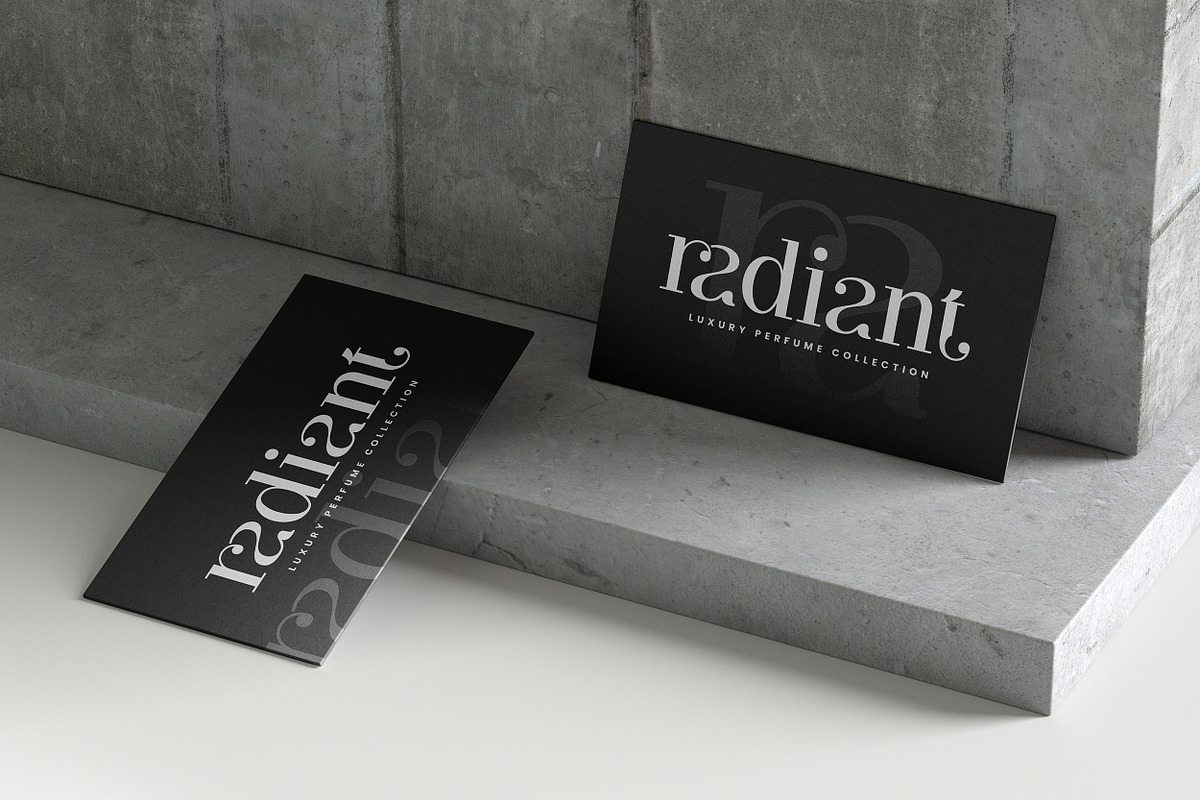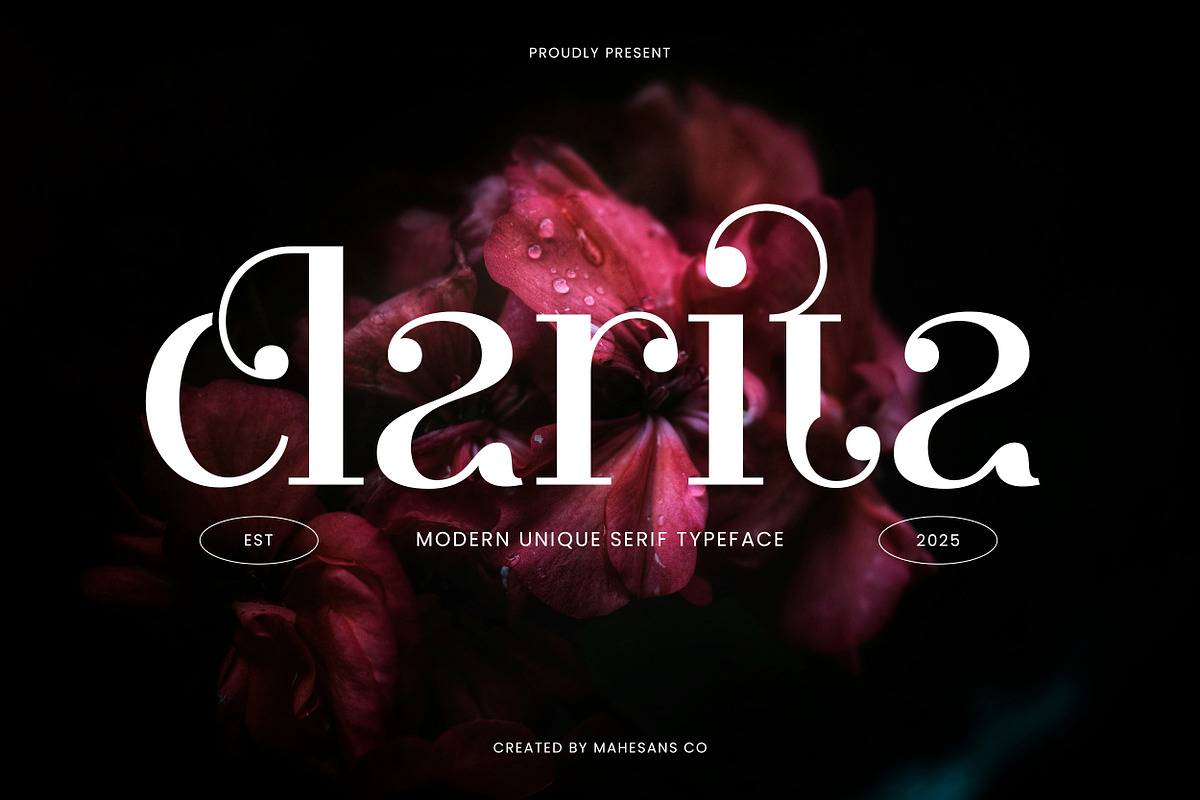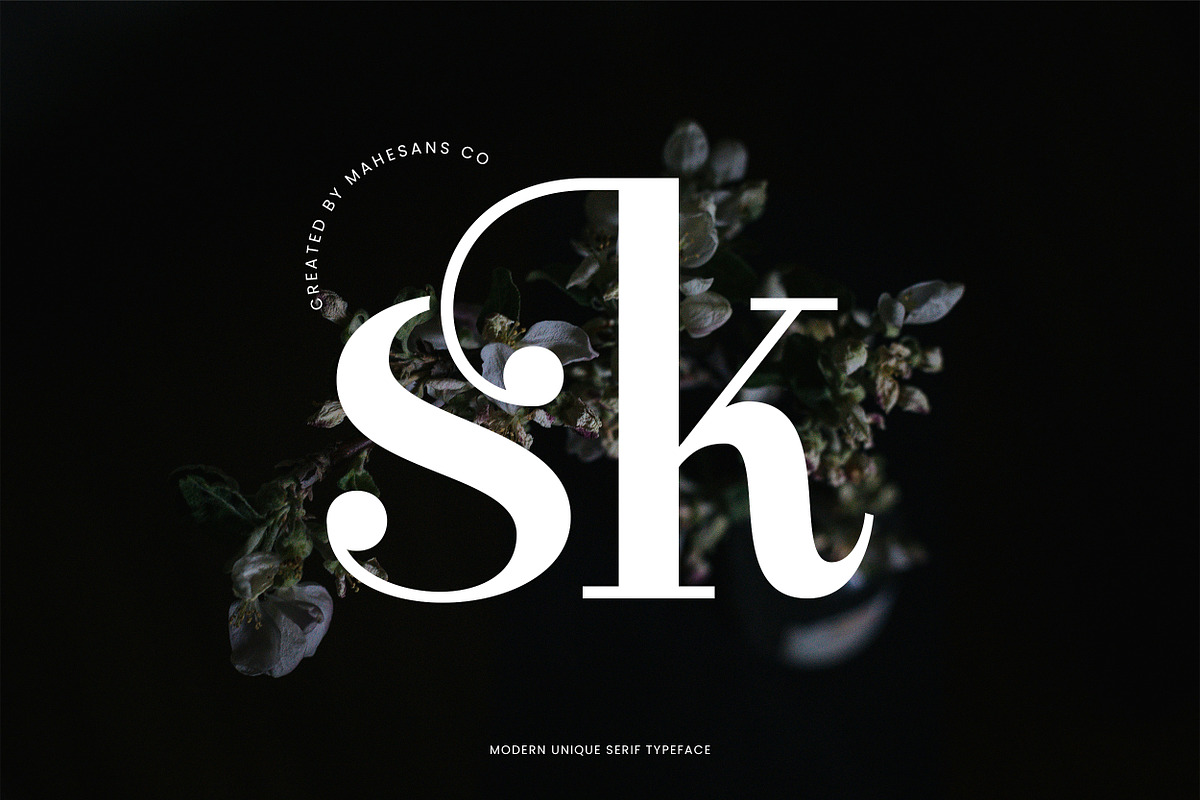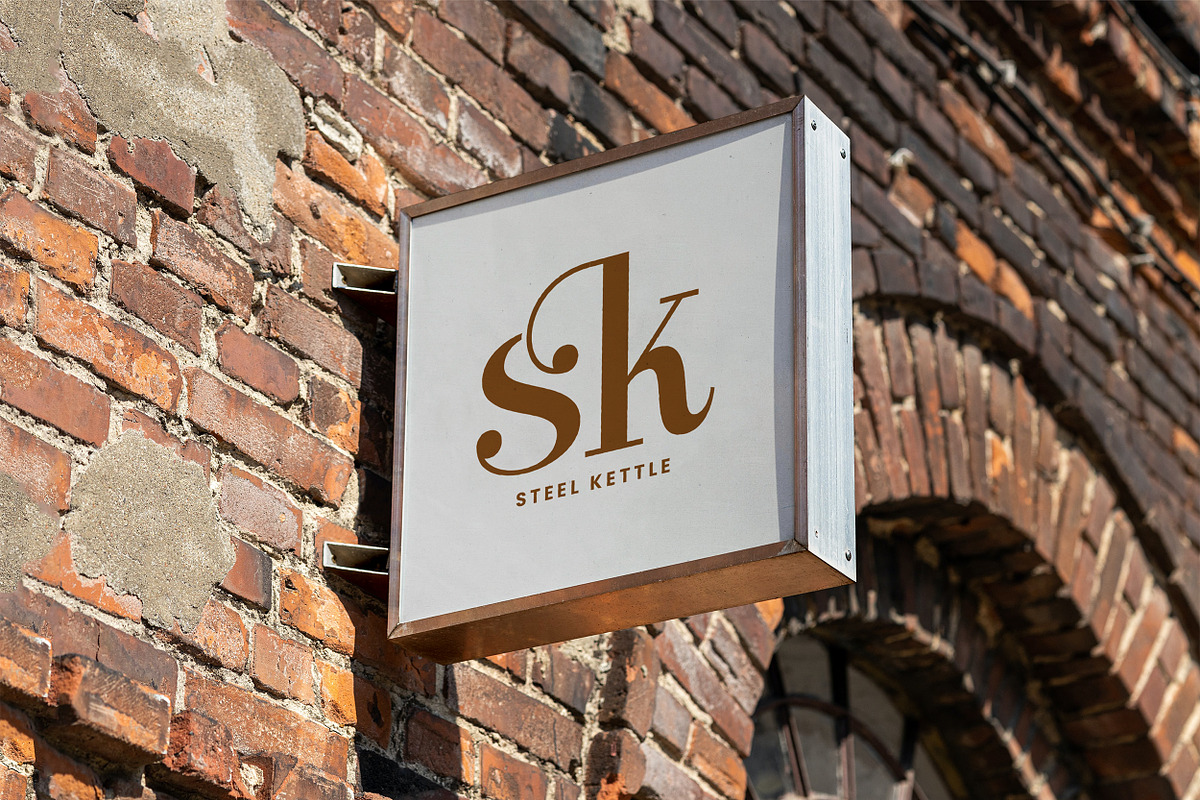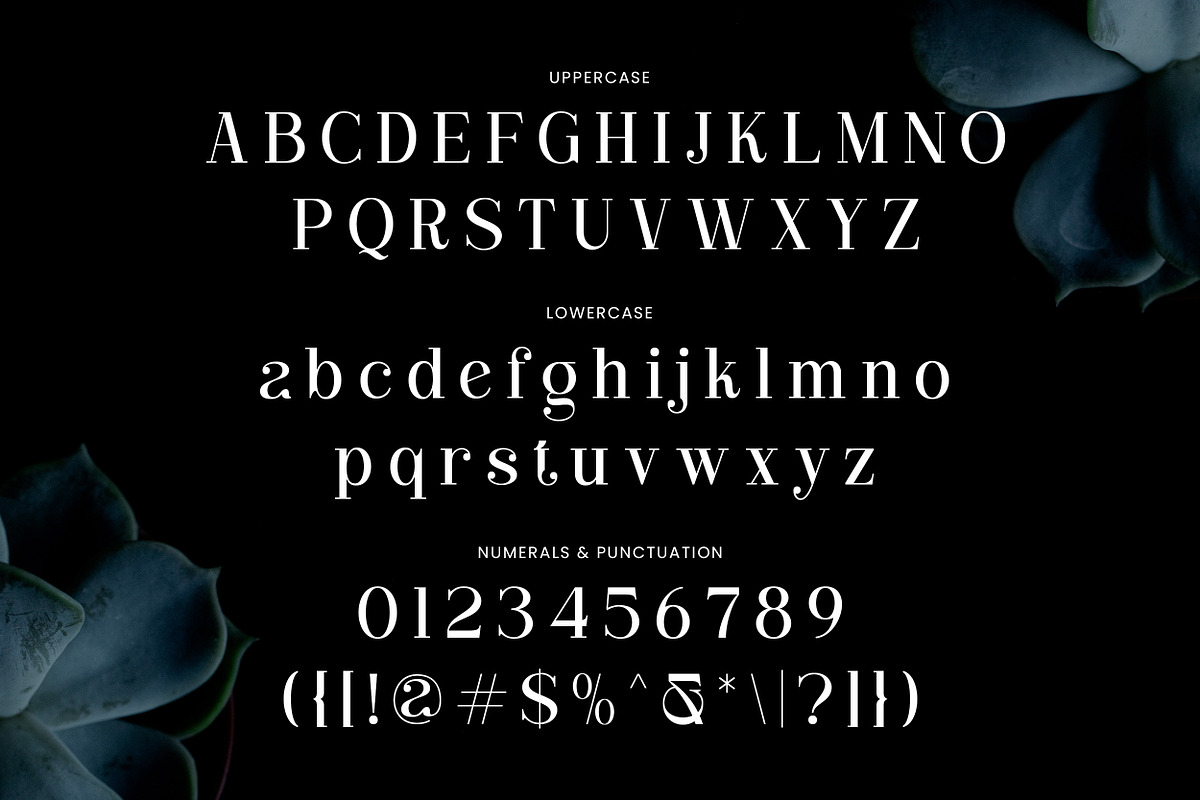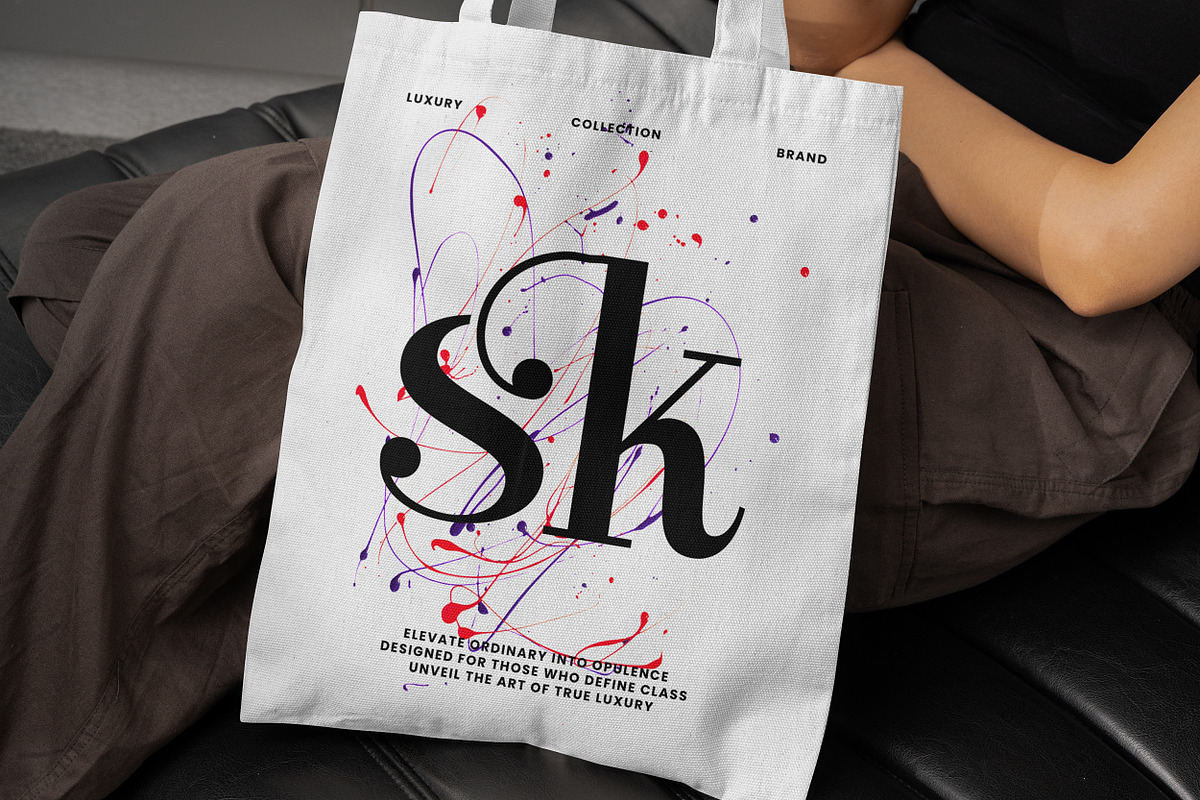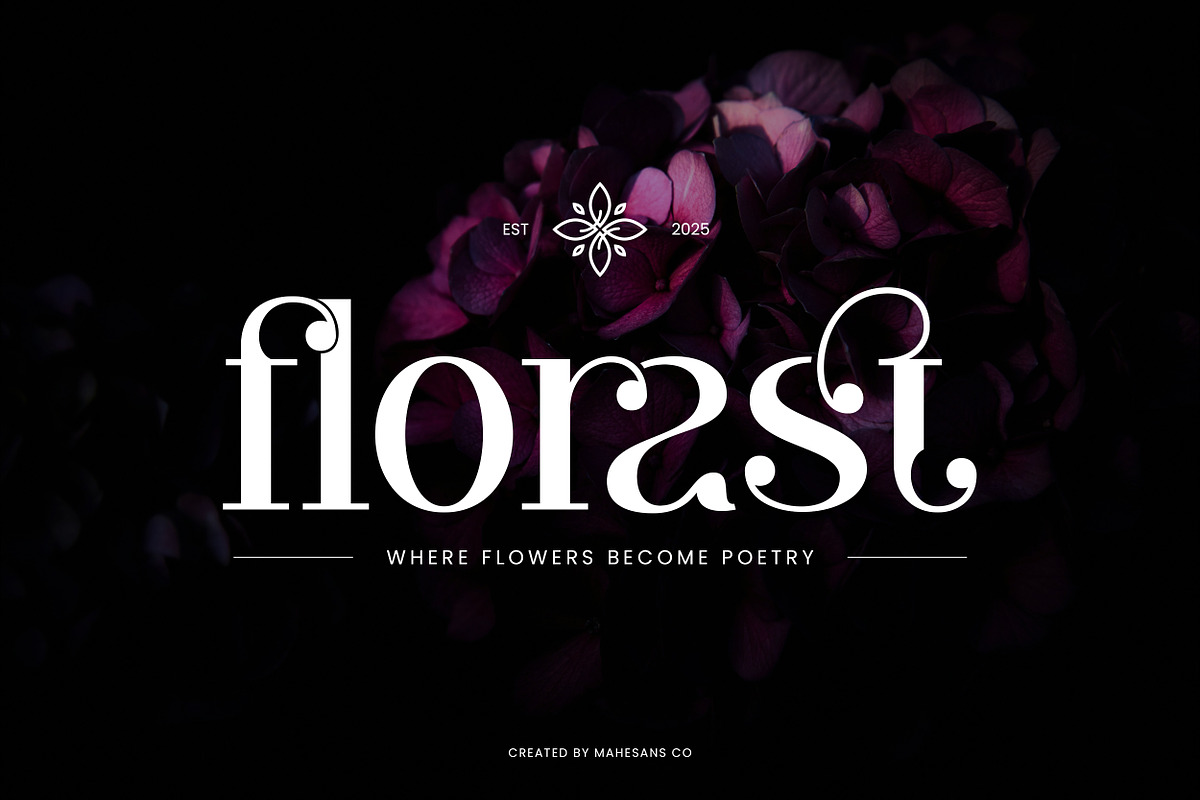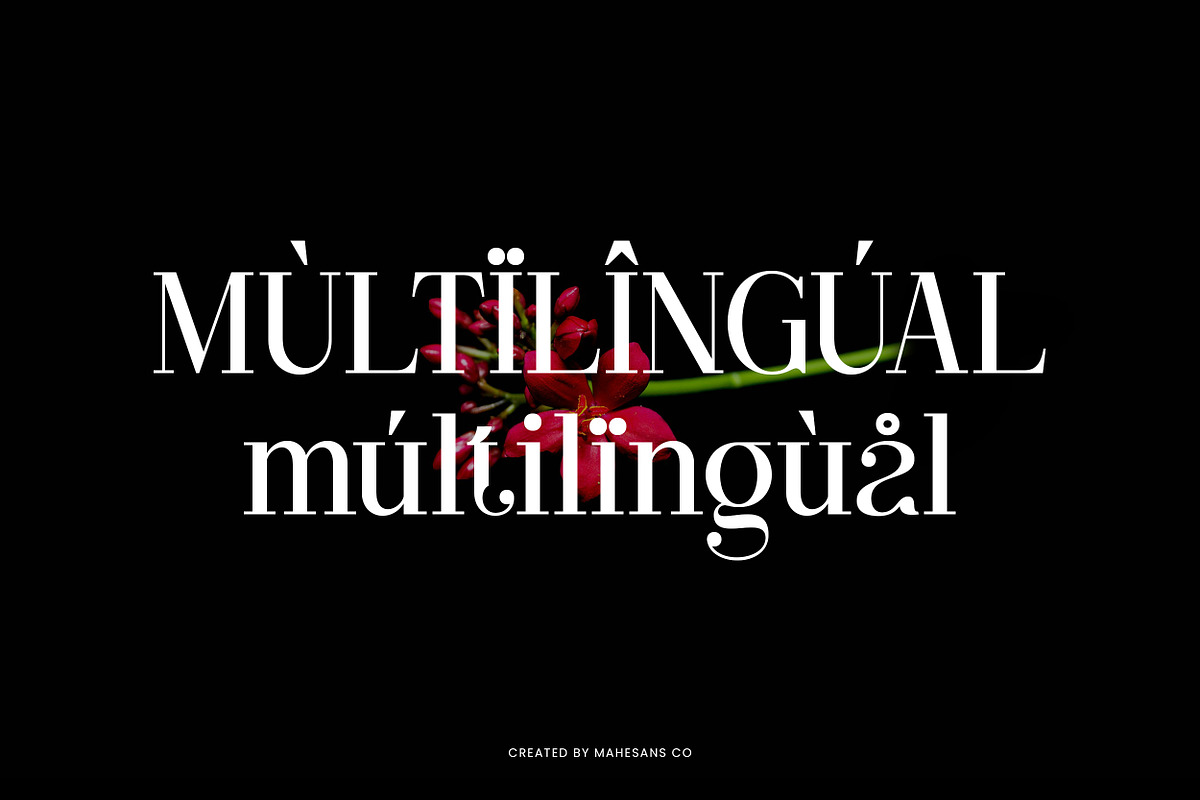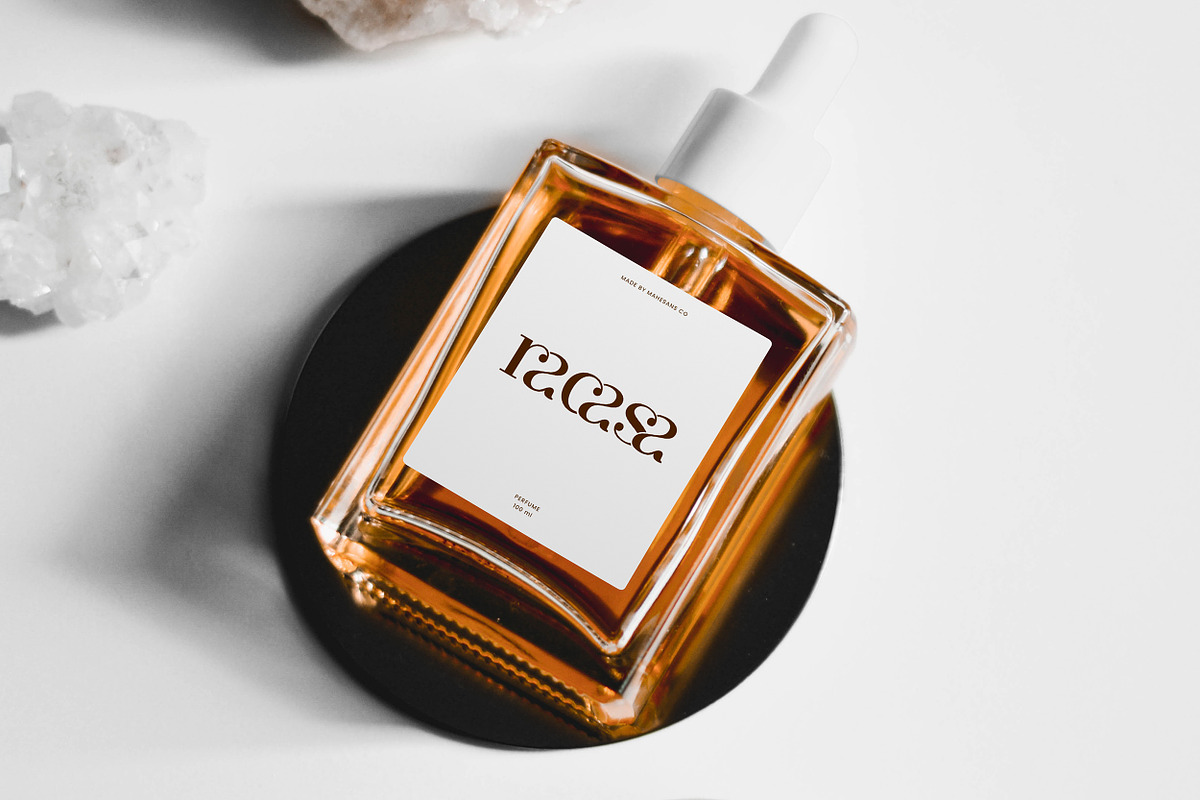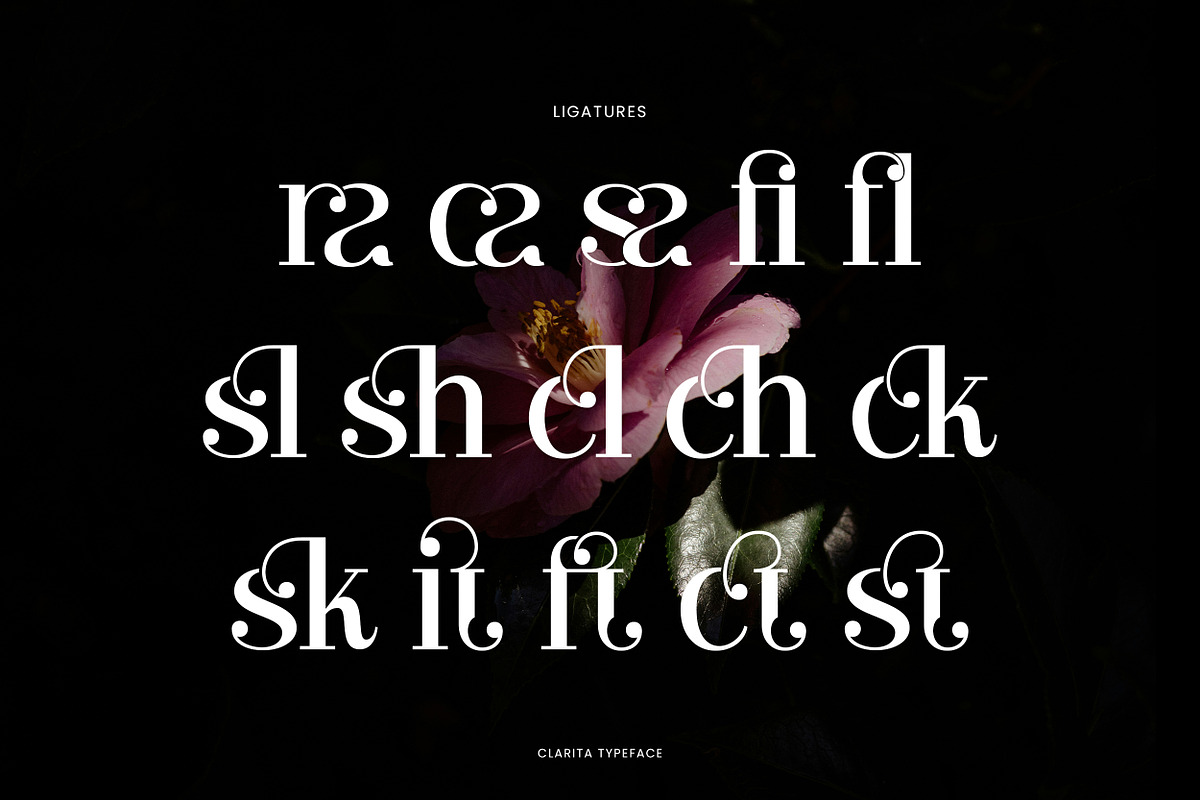
Clarita | Modern Unique Serif
Clarita is a modern serif typeface that blends luxury, elegance, and artistic curves into one unique design. With its high contrast strokes, stylish terminals, and exquisite ligatures, Clarita is crafted for those who seek a typeface that stands out in branding, fashion editorials, and upscale packaging.
Each letter is designed with precision, giving you a versatile font that works beautifully for logos, magazine headlines, boutique branding, wedding invitations, cosmetic packaging, and social media content. Clarita’s elegant curves and sophisticated details will elevate your designs, making them look chic, classy, and professional.
- Unique Ligatures
- Multilanguage